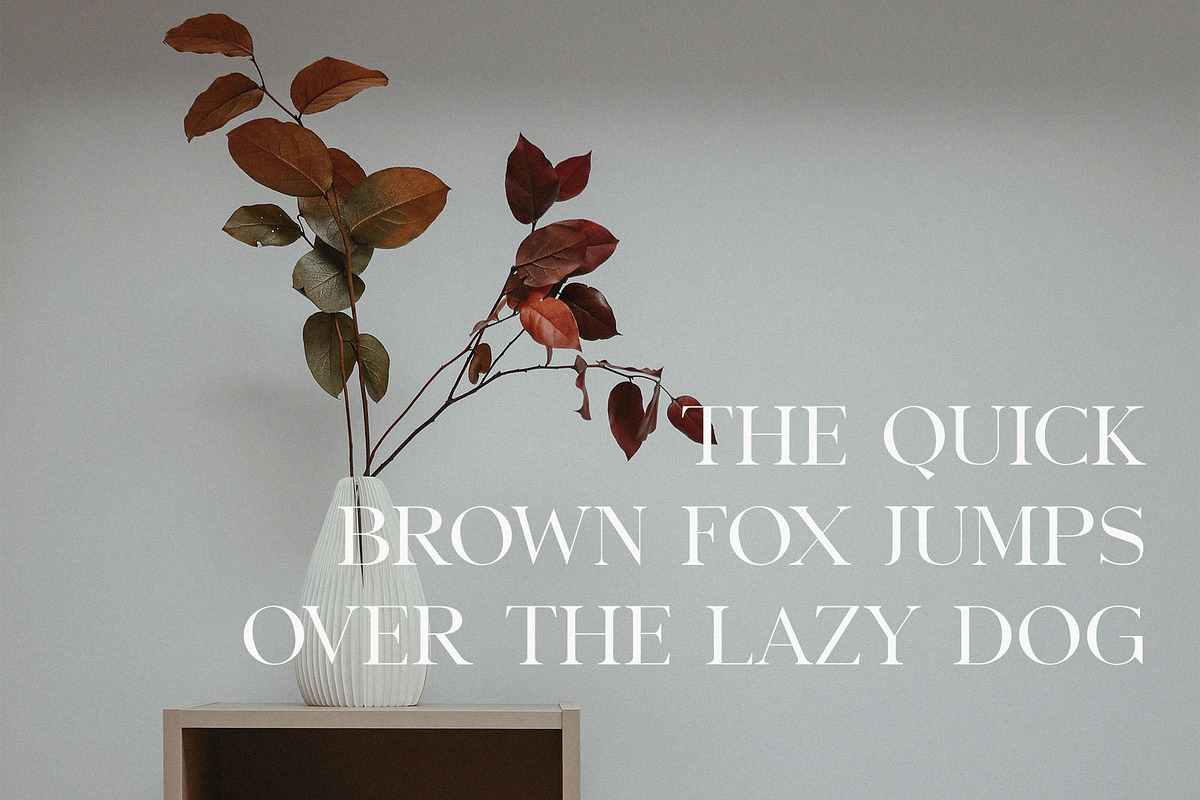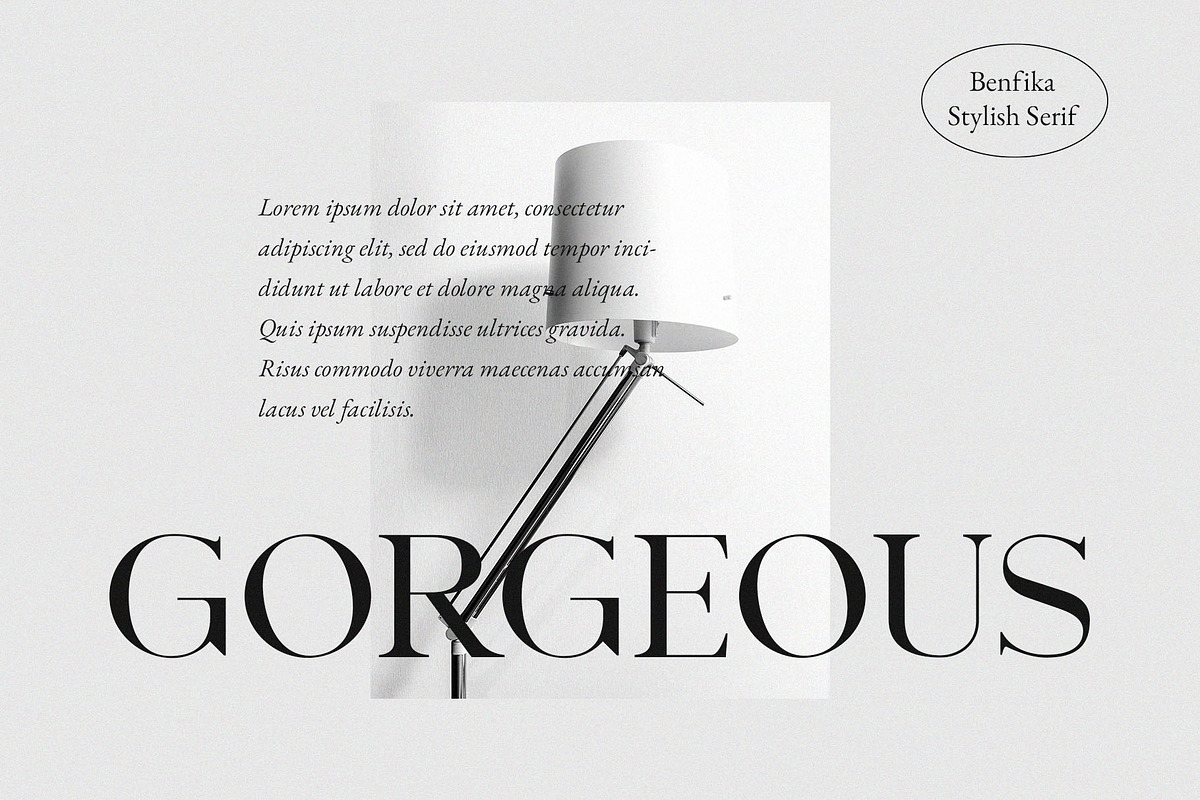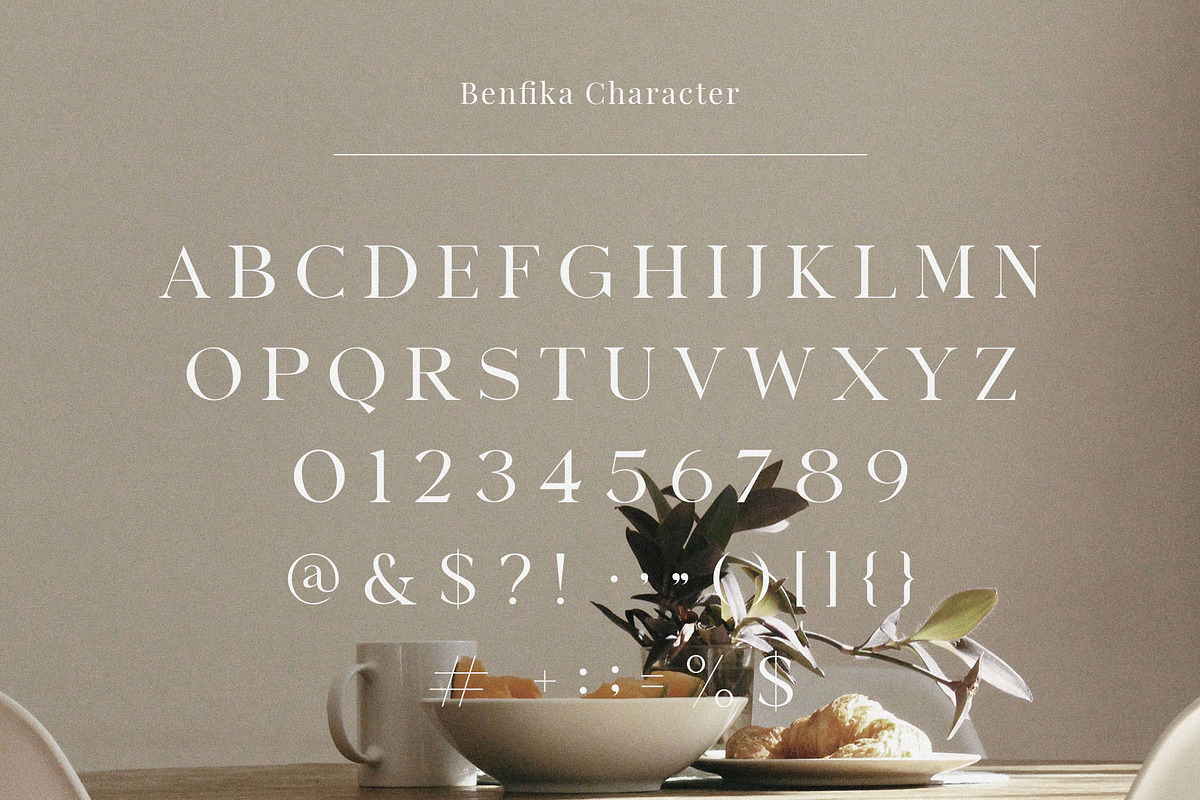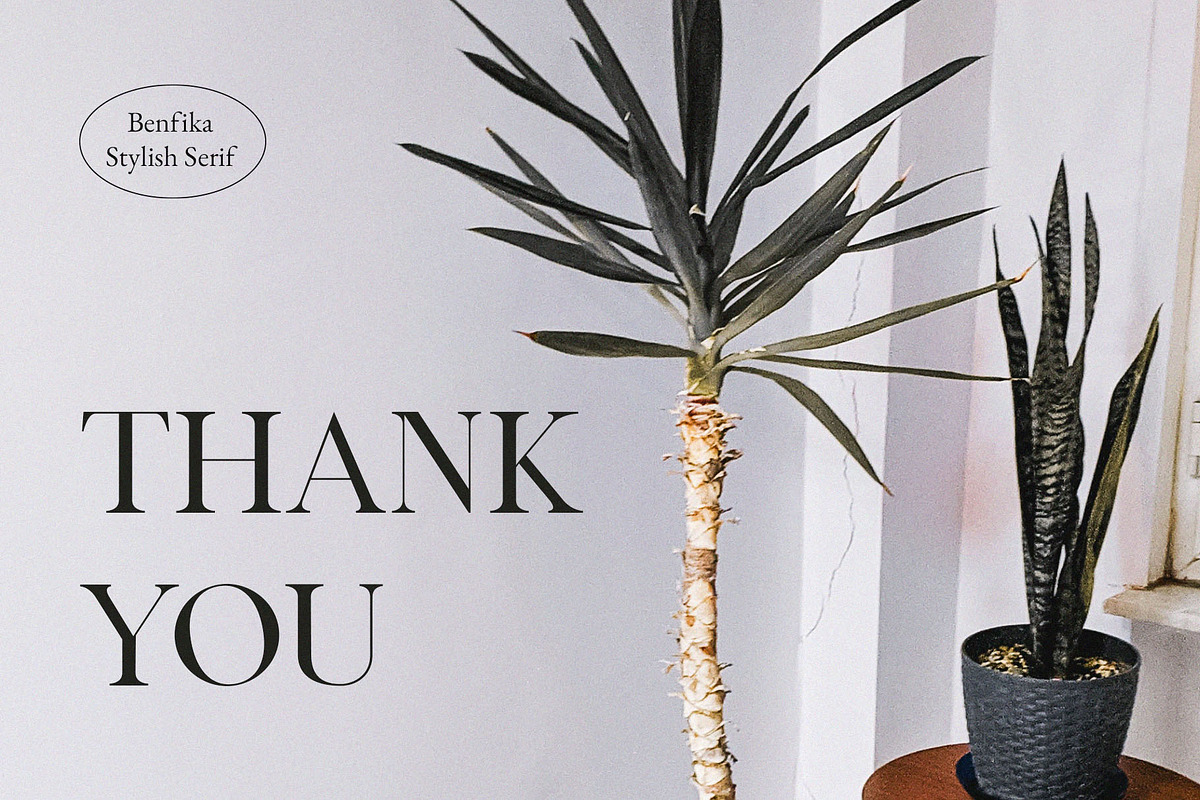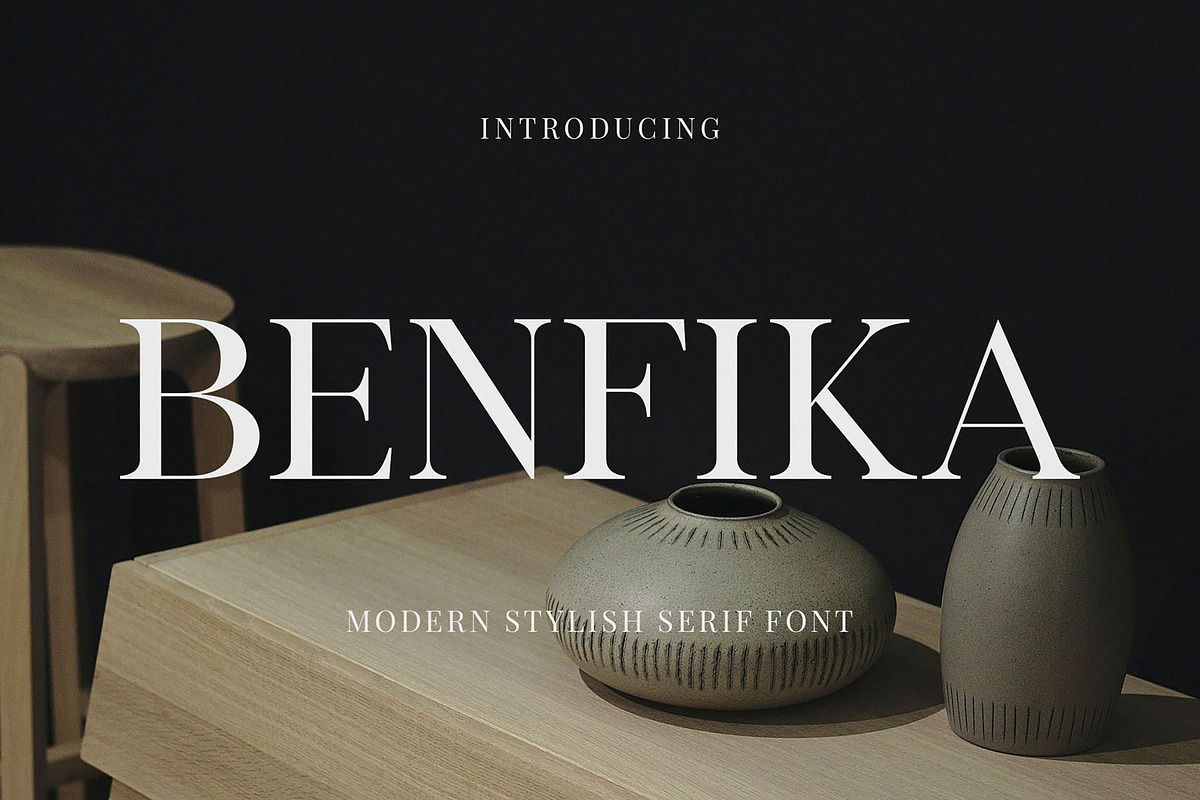
Benfika - Modern Stylish Serif
Introducing our new Benfika, modern serif font with elegant style this is perfect for branding, logos, invitation, magazines, product packaging and more.